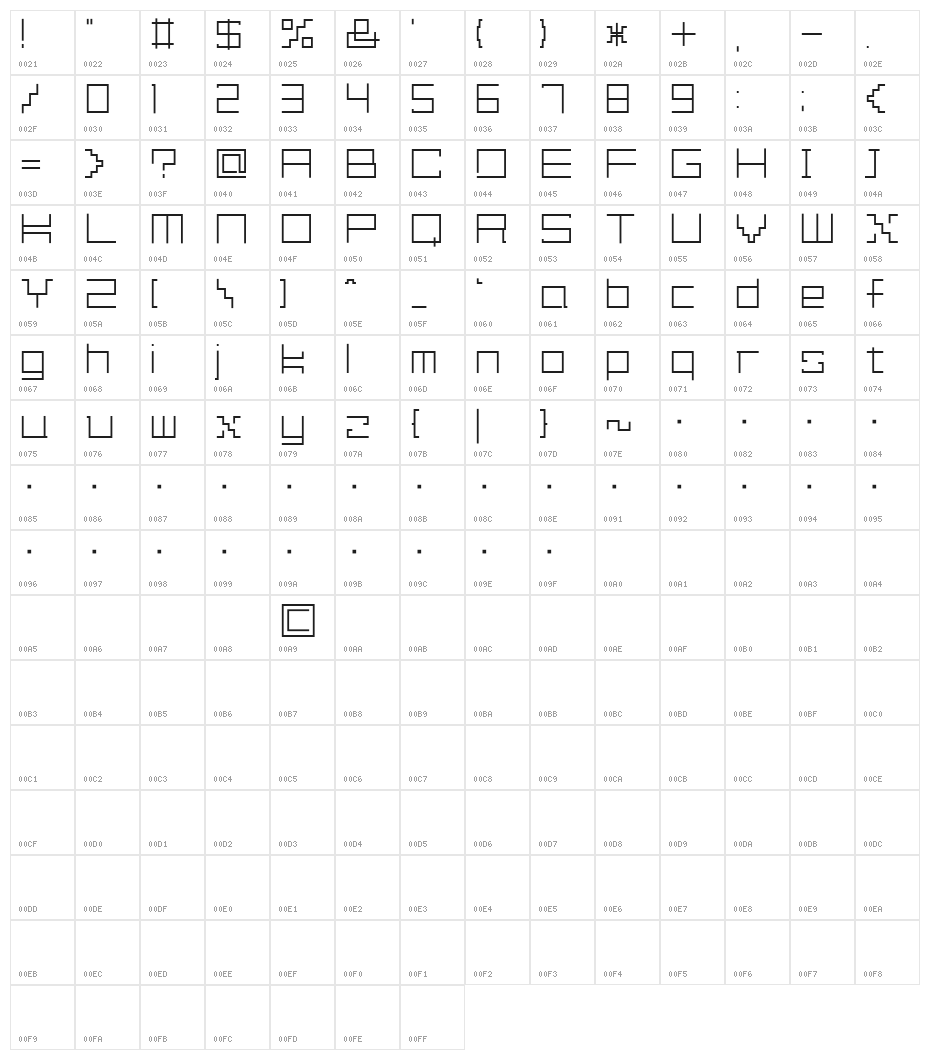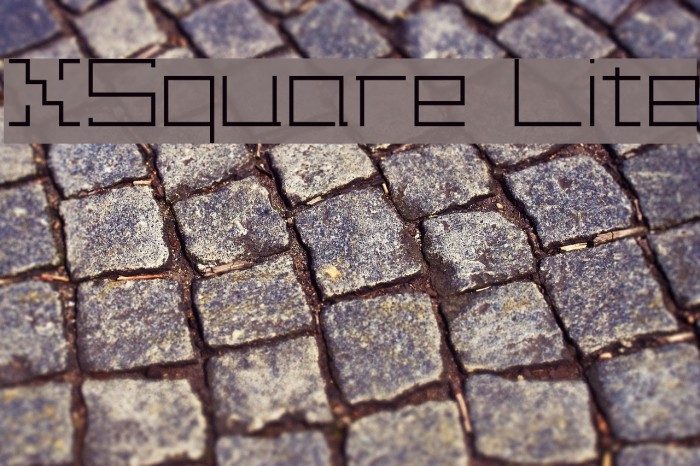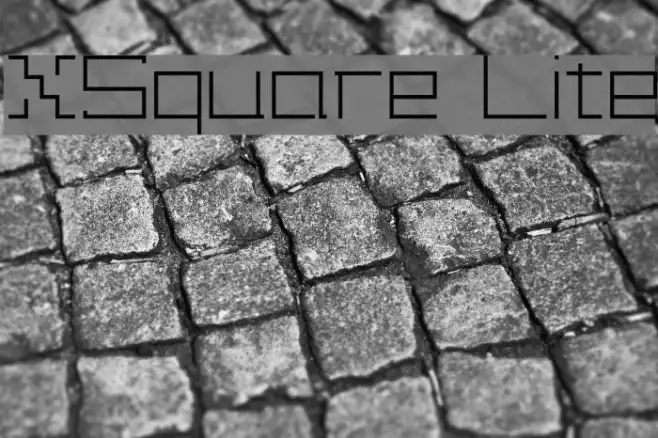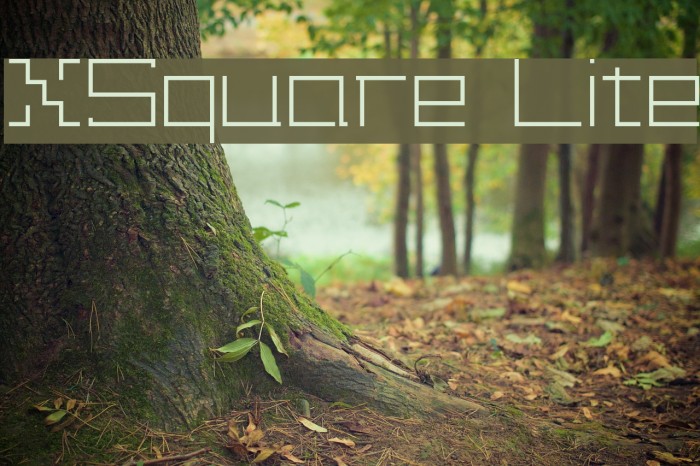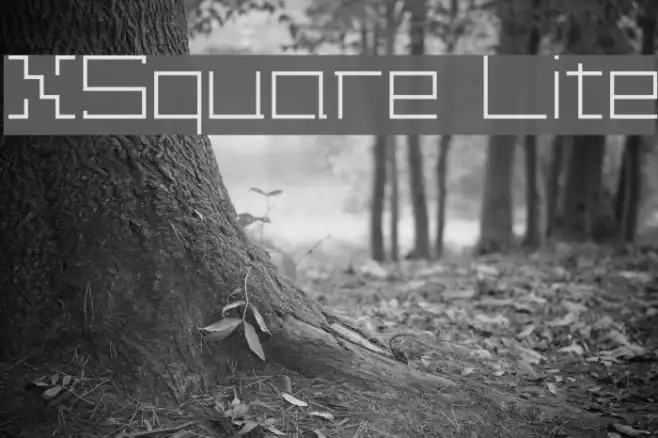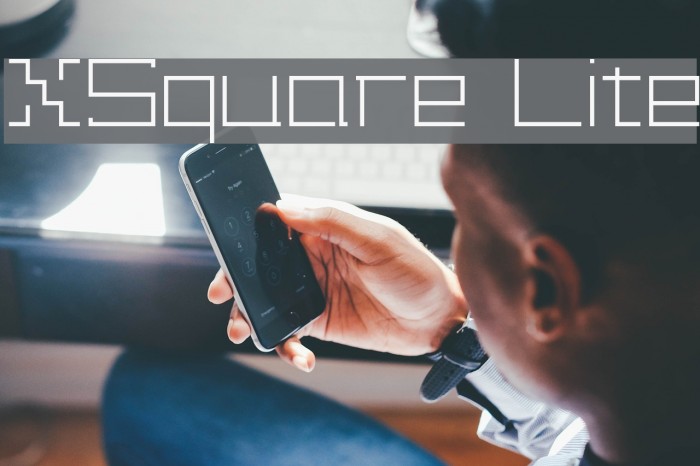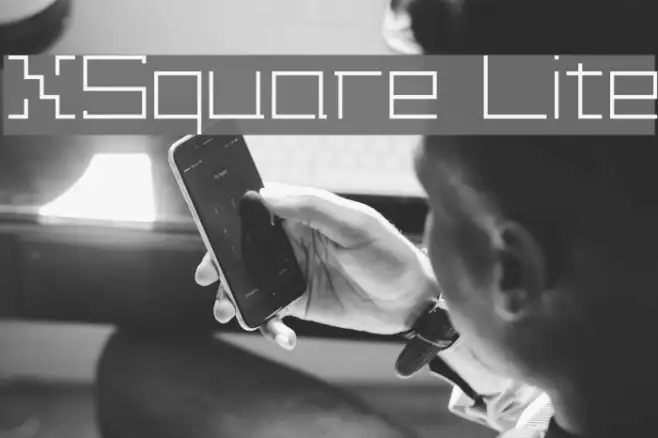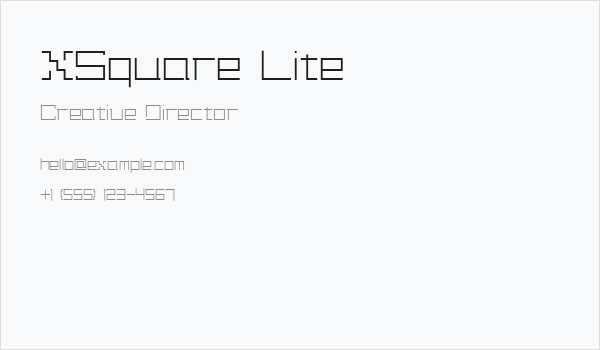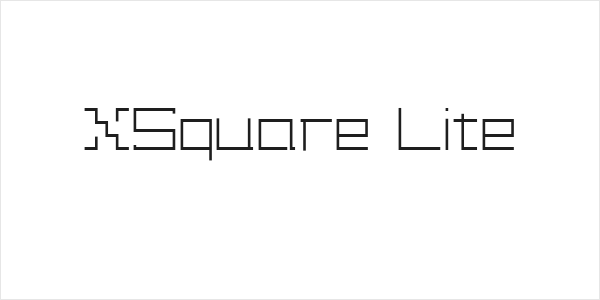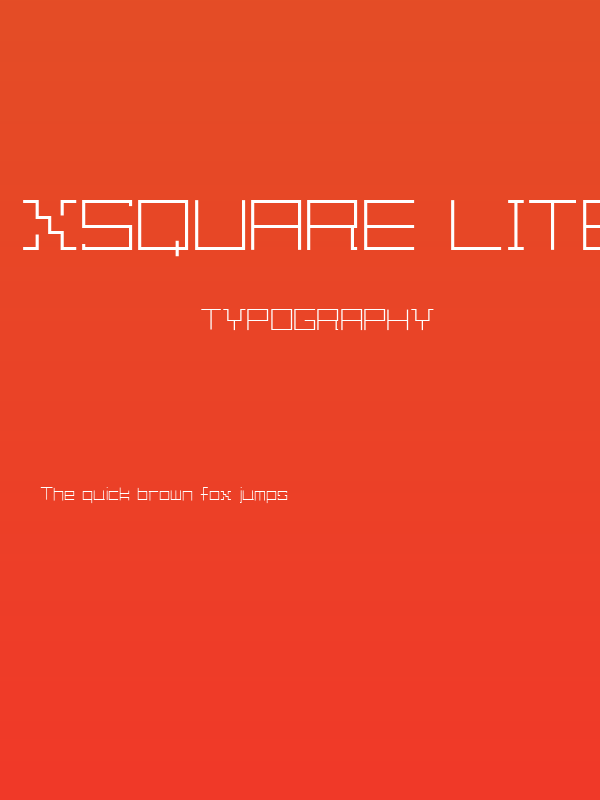
XSquare Lite Font
XSquare Lite Description
This font features a geometric, grid-like design with a modern, digital aesthetic. Each character is constructed with straight lines and right angles, giving it a pixelated appearance reminiscent of early computer graphics. The uniformity in line thickness across all characters contributes to a cohesive and structured look. Uppercase and lowercase letters maintain a consistent height, enhancing readability while preserving the font's unique style. Numbers and special characters follow the same design principles, ensuring a harmonious overall appearance. This font is ideal for projects that require a futuristic or tech-inspired theme.
XSQUARE-LITE UPPERCASE
XSQUARE-LITE LOWERCASE
XSQUARE-LITE OTHER CHARS
| Use Case | Logos, Headlines, Digital interfaces |
| Proposed Projects | Ideal for digital art, tech-themed branding, video game interfaces, and futuristic design projects. |